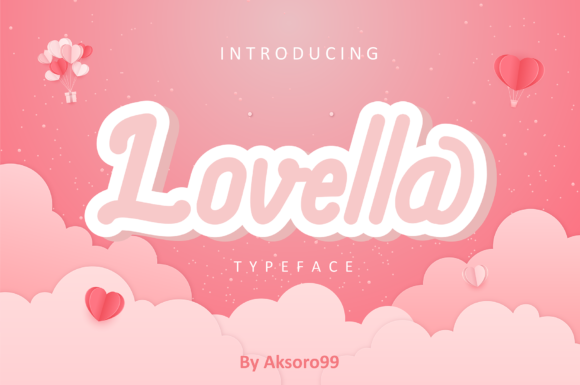
**Introducing Lovella Font: The Epitome of Modern Design**
Prepare to be captivated by Lovella, a display font that oozes beauty and sophistication. Its timeless charm will elevate any design project, making it the ideal choice for discerning creatives.
**Craft Designs that Captivate**
With Lovella, your designs will transcend the ordinary. Its elegant curves and striking lines create an allure that draws the eye and captivates the imagination. Whether you're crafting logos that demand attention or invitations that exude grace, Lovella empowers you to leave a lasting impression.
**Experience the Versatility of Expression**
Lovella is a font of infinite possibilities. Its versatility shines through in its adaptability to diverse design styles. From business cards that exude professionalism to PowerPoint presentations that command respect, Lovella seamlessly adapts to your vision, transforming your ideas into unforgettable masterpieces.
**A Legacy of Excellence**
Crafted by the renowned Aksoro 99, Lovella is a testament to their unwavering commitment to excellence. Each character is meticulously designed to ensure visual harmony and impeccable readability, empowering you to convey your message with clarity and style.
**Join the Creative Revolution**
With Lovella at your fingertips, you're part of a creative revolution. Unleash your imagination and watch as your designs blossom into stunning works of art. From personal projects to commercial endeavors, Lovella will be your trusted companion, helping you achieve design brilliance.
**Embark on a Timeless Journey of Beauty**
Experience the transformative power of Lovella today. Let its enchanting curves and graceful lines transport you to a world of design possibilities. Create gorgeous and timeless designs that leave an enduring legacy of beauty and elegance.